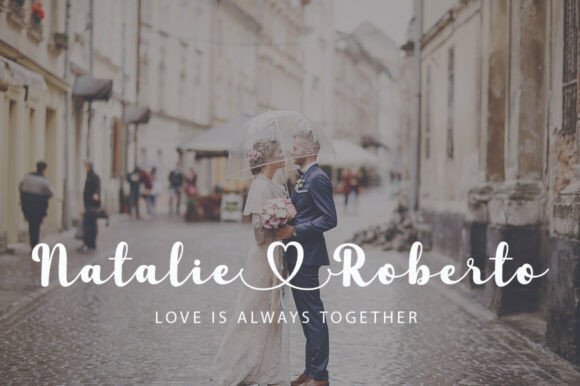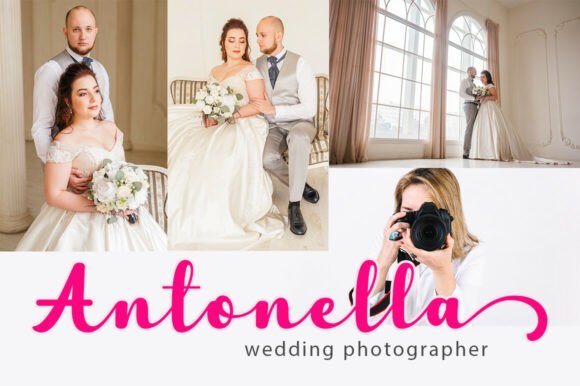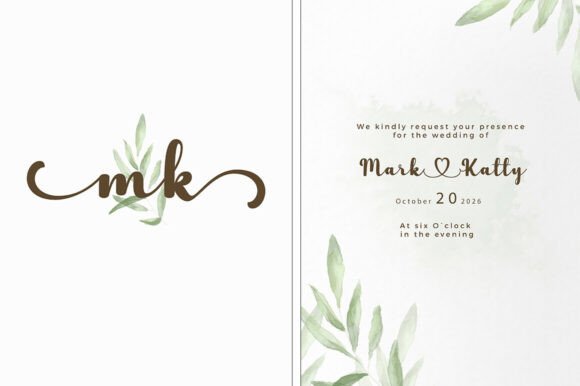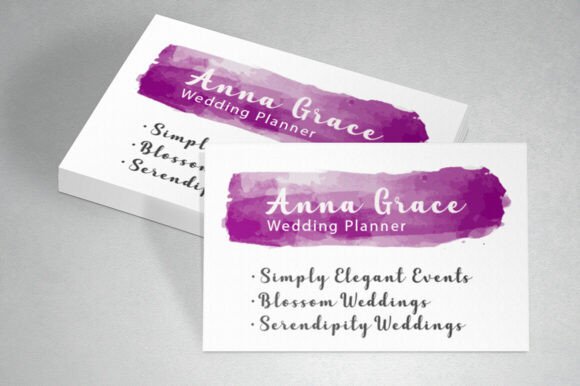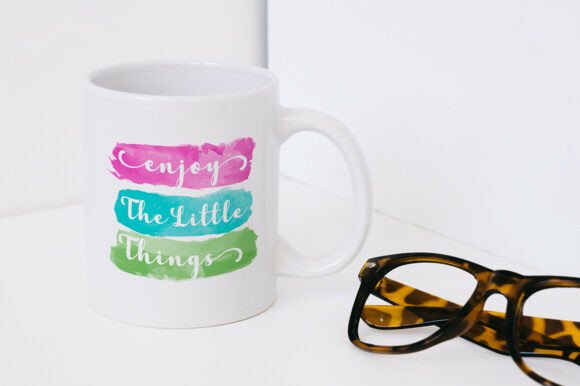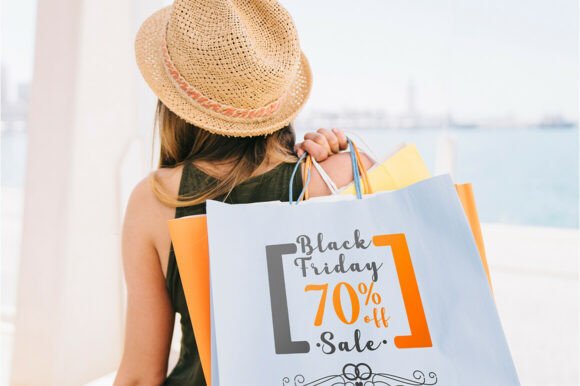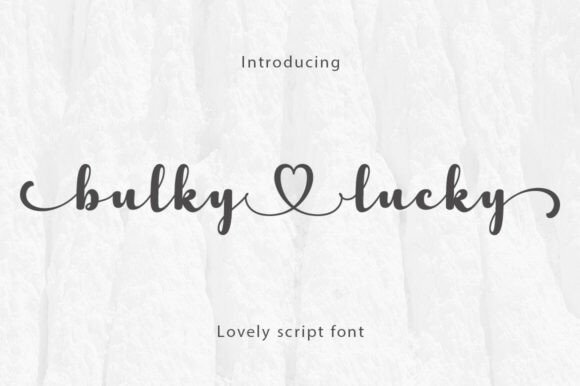
Introducing Bulkylucky Font: Elevate Your Designs with Elegance and Fluidity
In the vast and ever-evolving world of typography, finding the perfect handwritten font that embodies elegance, delicacy, and fluidity can be a daunting task. However, for designers and crafters on the lookout for that unique touch to make their projects stand out, Bulkylucky Font is here to revolutionize your creative process. This exquisite handwritten font is not just a typeface; it’s an experience that brings spectacular designs to life with its singular charm.
The Essence of Bulkylucky Font
Bulkylucky is the epitome of sophistication and grace in the realm of handwritten fonts. Its distinct and everlasting style quickly wins the hearts of designers who yearn for something beyond the conventional. What sets Bulkylucky apart is its perfect blend of elegance and fluidity, making it an instant favorite among typography enthusiasts. Whether you’re working on a branding project, a wedding invitation, or a packaging design, Bulkylucky brings that special flair that can elevate your work from ordinary to extraordinary.
Endless Creativity at Your Fingertips
One of the standout features of Bulkylucky Font is its PUA (Private Use Area) encoding. This means that all glyphs and swashes are easily accessible, providing you with an extensive range of creative possibilities. With Bulkylucky, you have the freedom to experiment with various stylistic elements, making it effortless to achieve the desired look and feel for your project. This level of versatility not only streamlines your design process but also opens up new avenues for innovation and artistic expression.
Why Choose Bulkylucky Font?
- Elegance and Delicacy: Bulkylucky’s unique style adds a touch of sophistication to any design, setting it apart from more generic typefaces.
- Fluidity: The font’s fluid strokes and connections create a harmonious and visually appealing effect, perfect for designs that require a personal touch.
- PUA Encoding: Enjoy effortless access to a wide range of glyphs and swashes, allowing for endless customization and creativity.
- Versatility: Suitable for a variety of projects, from digital content to print materials, Bulkylucky adapts seamlessly to different design needs.
- User-Friendly: Designed to be easy to use, Bulkylucky Font integrates smoothly into your design workflow, saving you time and boosting productivity.
Bringing Your Vision to Life with Bulkylucky
Imagine being able to infuse your designs with a level of elegance and personality that resonates with your audience. Bulkylucky Font makes this a reality, offering a unique blend of style and versatility that’s hard to find elsewhere. Here are a few ways you can leverage Bulkylucky to enhance your designs:
- Branding: Create memorable brand identities with custom logos, business cards, and letterheads that reflect your brand’s personality.
- Wedding and Event Planning: Design stunning invitations, menus, and decor that set the tone for your special day.
- Packaging: Stand out on store shelves with eye-catching packaging that combines Bulkylucky’s elegance with your product’s unique story.
- Digital Content: Enhance your website, social media posts, and marketing materials with a distinctive typography that captures attention.
Bulkylucky Font is more than just a typeface; it’s a tool that unlocks your creative potential, allowing you to craft designs that are not only visually stunning but also deeply engaging. Its unique blend of elegance, delicacy, and fluidity, combined with the convenience of PUA encoding, makes it an indispensable asset for designers and crafters alike. Whether you’re looking to add a touch of sophistication to your branding, create memorable event invitations, or simply explore new avenues of creativity, Bulkylucky is your gateway to a world of limitless design possibilities.